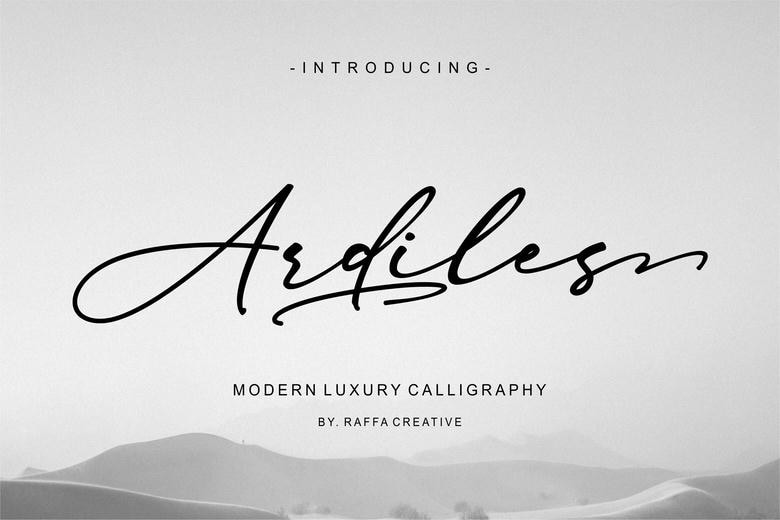
Ardiles Font
Ardiles is a current handwritten typeface that has a luxurious and more graceful touch. Best on branding, wedding invitations, product wrapping, social media, and signature-style logos. The natural flow and smooth curves that make your designs attractive, give them a touch of a class.
Ardiles Handwritten Script Font